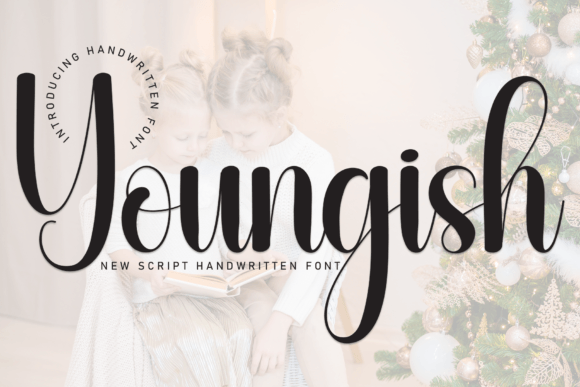
Introducing Youngish Font: A Whimsical Handwritten Masterpiece for T-shirt Designs
Are you searching for an enchanting font that captures the delightful essence of handwritten notes? Look no further than Youngish Font, a charming script font family designed with warmth and playfulness. Its flowing, carefree strokes evoke a sense of nostalgia and comfort, making it the perfect choice for creating personalized t-shirts that resonate with your customers.
Immerse yourself in a world of creativity and expression with Youngish Font. Its delightful curves and playful character add a personal touch to every design, making your t-shirts stand out from the rest. Picture your customers adorned in t-shirts adorned with Youngish Font, spreading joy and positivity wherever they go.
Youngish Font is not merely a font; it's an experience. A journey into a world of imagination where handwritten sentiments come alive. It's an invitation to share your unique stories, dreams, and aspirations through the medium of t-shirt design. Embrace the versatility of Youngish Font and create t-shirts that reflect your individuality and style.
With Youngish Font, the possibilities are endless. From whimsical quotes and heartfelt messages to captivating illustrations and eye-catching graphics, this font empowers you to unleash your creativity and bring your t-shirt designs to life. Its crisp and legible characters ensure that your message is conveyed clearly and effectively, leaving a lasting impression on your customers.
So, embark on this creative adventure with Youngish Font and transform your t-shirt designs into expressions of art. Let your imagination soar and captivate your customers with designs that resonate with their hearts and souls. Join the Youngish Font community and experience the joy of creating t-shirts that tell stories, evoke emotions, and leave an indelible mark on the world.